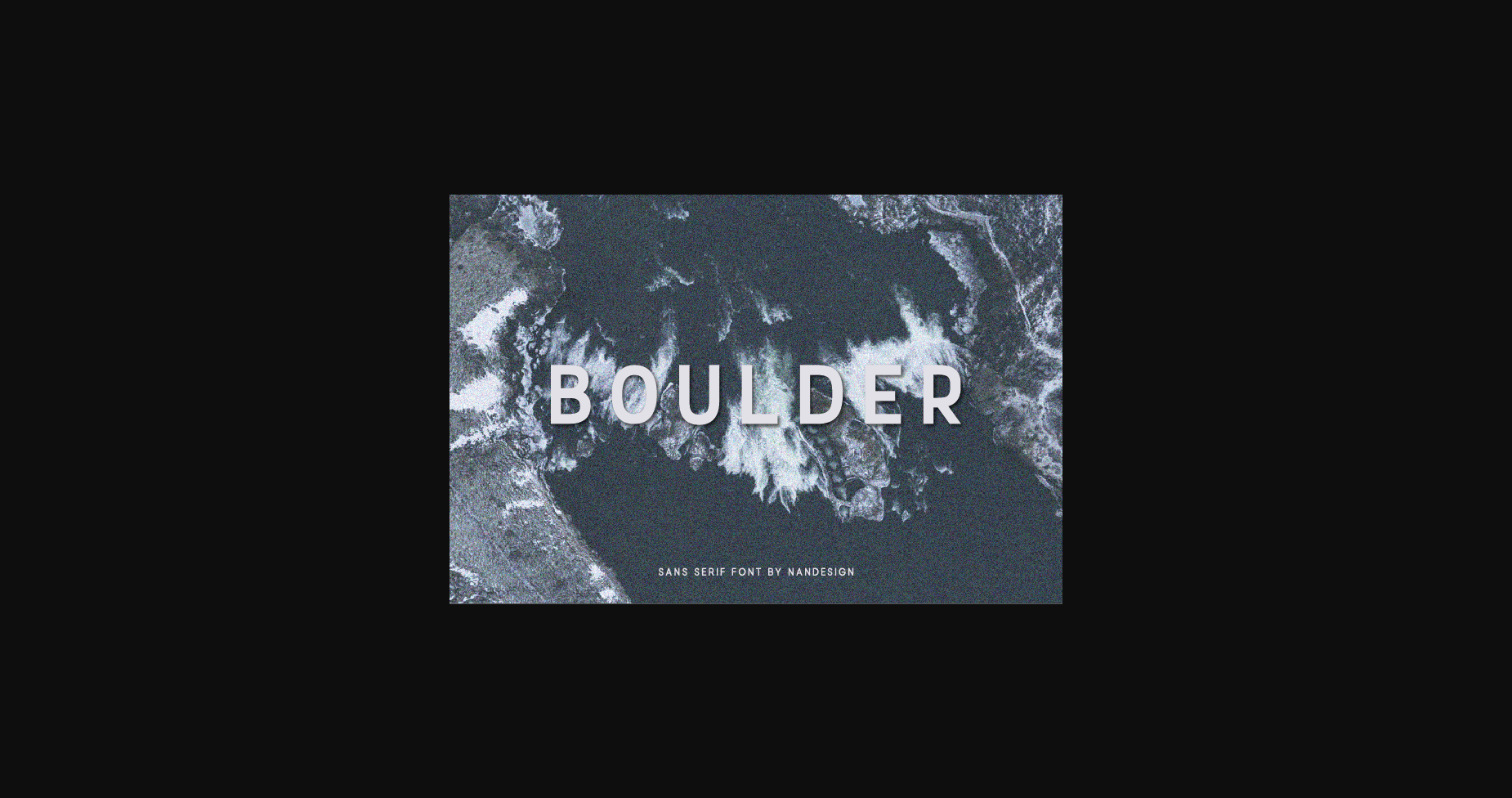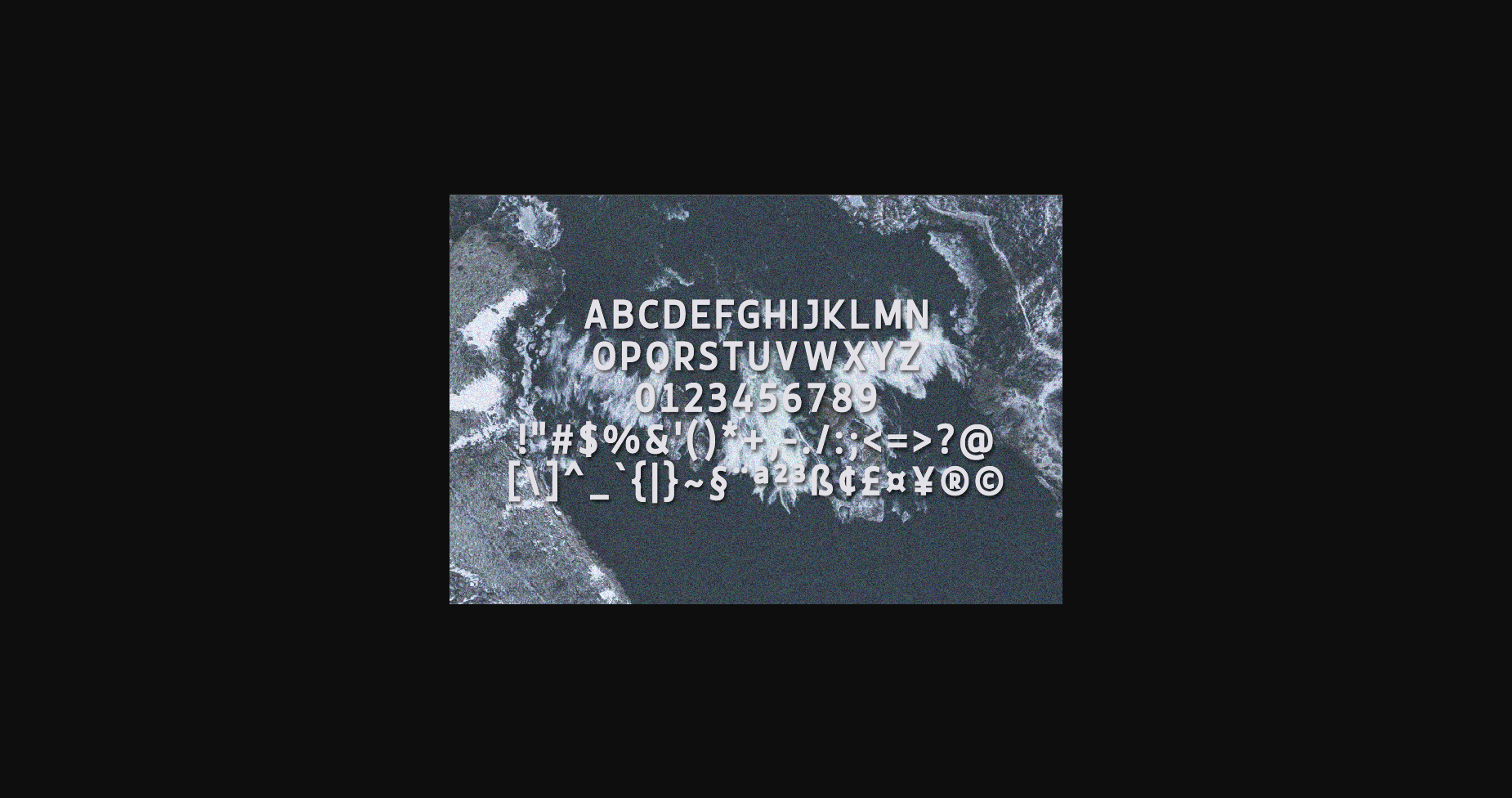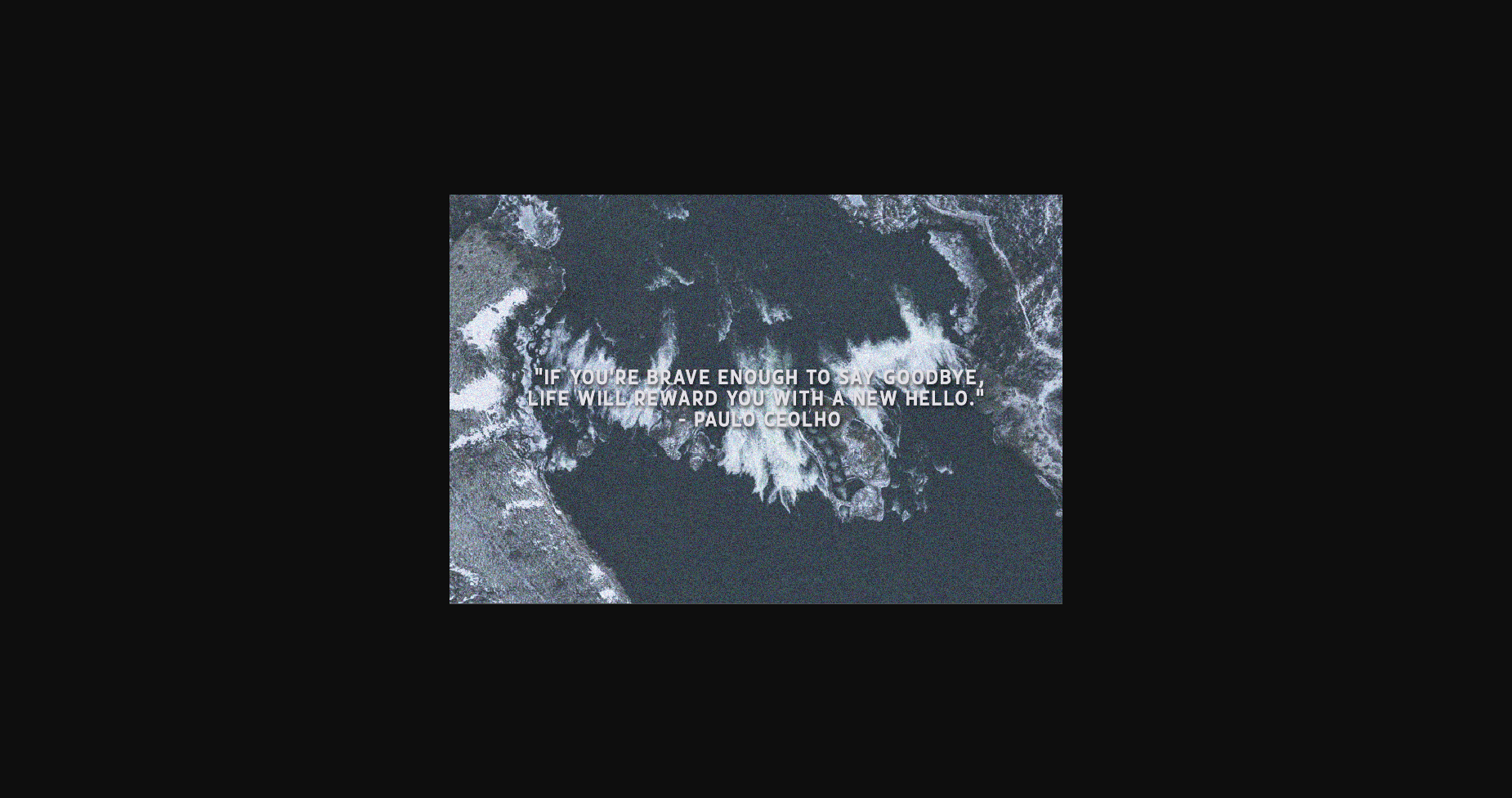
Boulder Font
About Boulder Font
Boulder is a neat and clean lettered sans serif font, designed to complement every project you’re working on.
Use it to create beautiful headings, gorgeous invitations, stunning logos, and so much more!